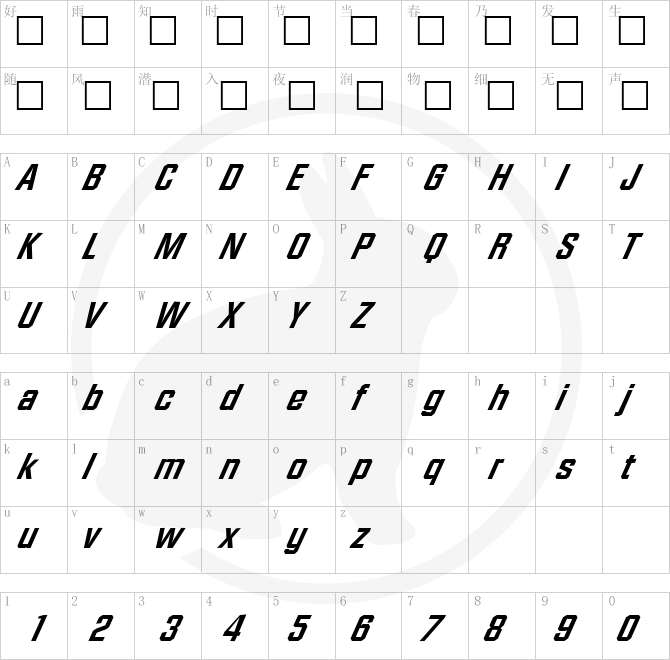
FacetExtrabold-XXitalic-Regular.ttf is a very beautiful artistic font, FacetExtrabold-XXitalic-Regular.ttf is widely used in the design and printing of various books and pictures,FacetExtrabold-XXitalic-Regular.ttf has a strong visual impact,FacetExtrabold-XXitalic-Regular.ttf is a commonly used font in newspapers, magazines and books, and is used in posters, e-commerce Poster design, store design, logo design, font design and other fields.FacetExtrabold-XXitalic-Regular.